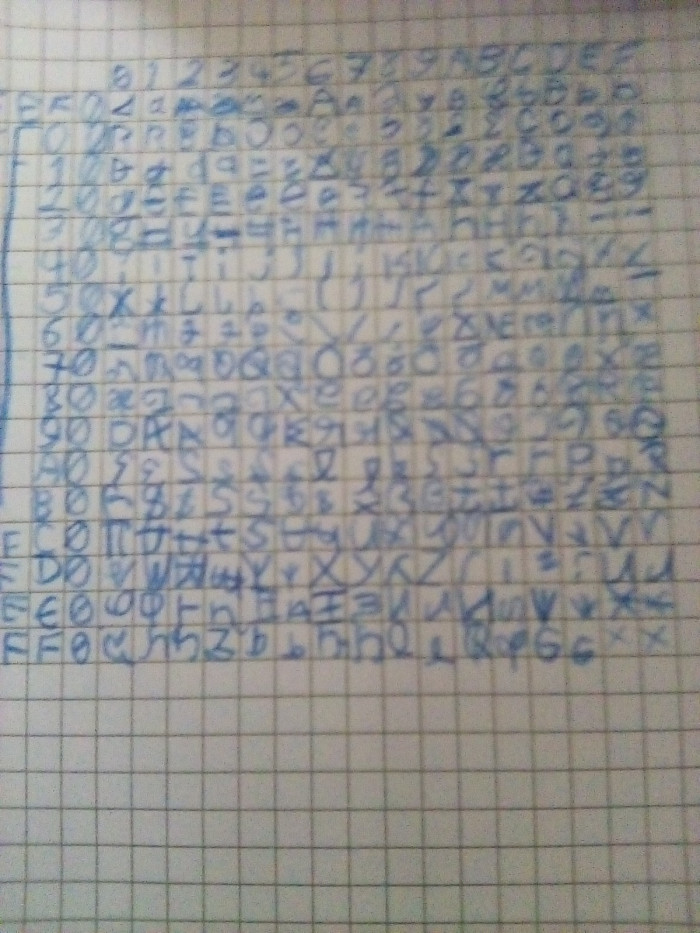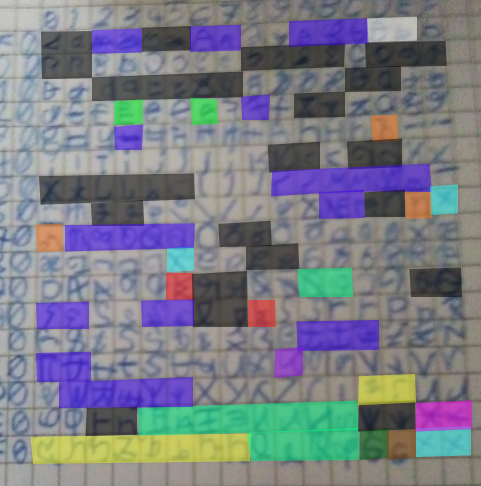
A2048-NG-CDX Compatibility
FFEF0-FFFFD
(I forgot Zhi)
White cells are ᴃ & ᴯ's uppercase and lowercase form.
Black cells are what i got from r/neograpy on reddit.
Orange cells are phonetic unencoded letters.
Red cells are just the letter "Kwak" for new english.
Cyan cells are not assigned.
Purple cell is the capital ligature ꭣ.
Blue cells are from this video: Click.
Teal cells are from the Cadexian Alphabet.
Yellow cells are from this video: Click.
Magenta cells are Ӿӿ in latin, using [k͡ħ̰̊] as the phonetic use.
Forest green cells are from ꬱ & ꭀ.
Brown cells already was in my Latin Ext-G phonetics.
Fixes:
The "ş" and "ţ" glyphs have been added a cedilla.
Kerning is in-fact WIP.
Cyrillic ў is missing a breve
fixed
I have noticed that the initial Ba in arabic is missing a dot, & i fixed it.
Ռ was the 1,000th glyph milestone!
made more kerning for "tt" and more ligatures :₹
should i revamp the hebrew glyphs they look weird tbh
Add the radical